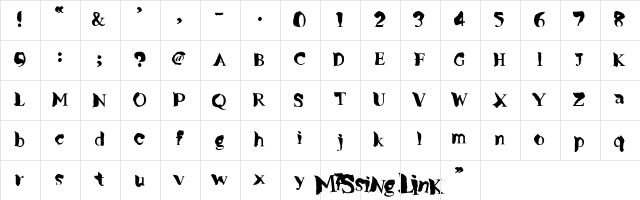
MissingLink Regular
Design Context for MissingLink Typeface
MissingLink is a composed and adaptable typeface that performs quietly and consistently across a wide range of design contexts.
Pro Tip: Pair MissingLink with a font of contrasting weight or personality to build a more expressive typographic hierarchy.